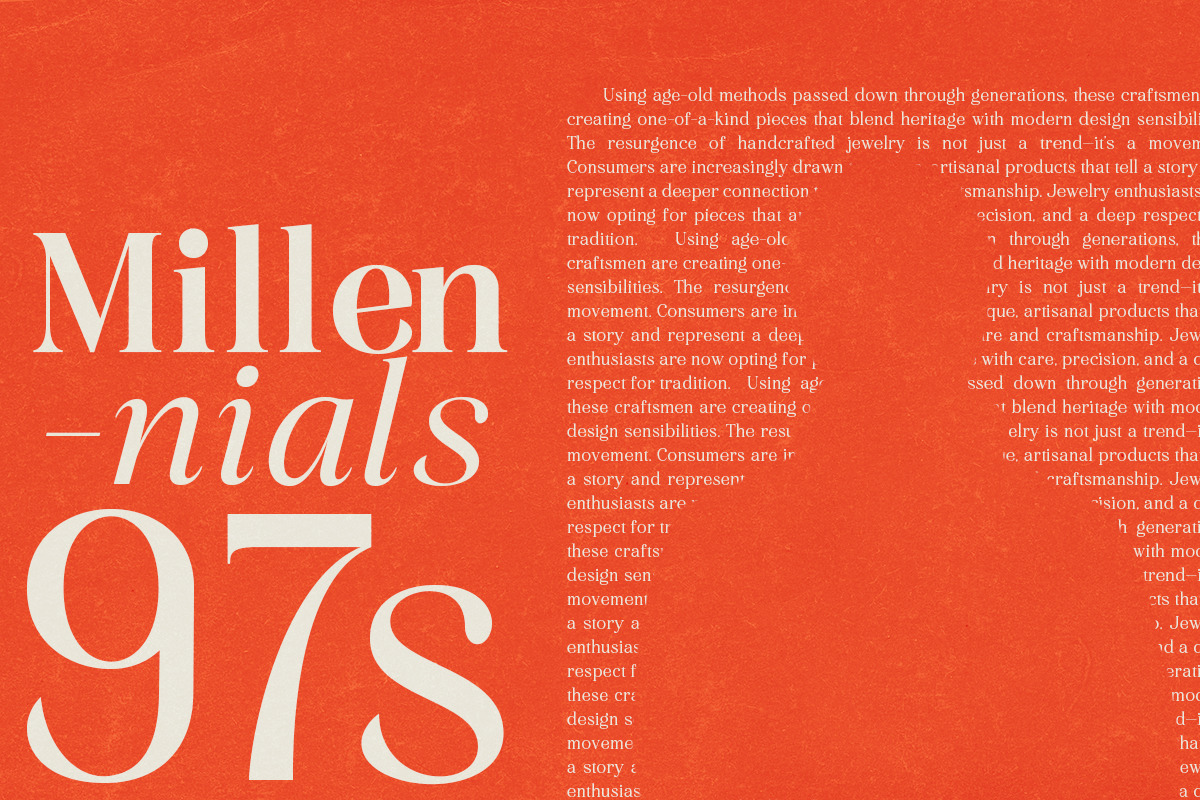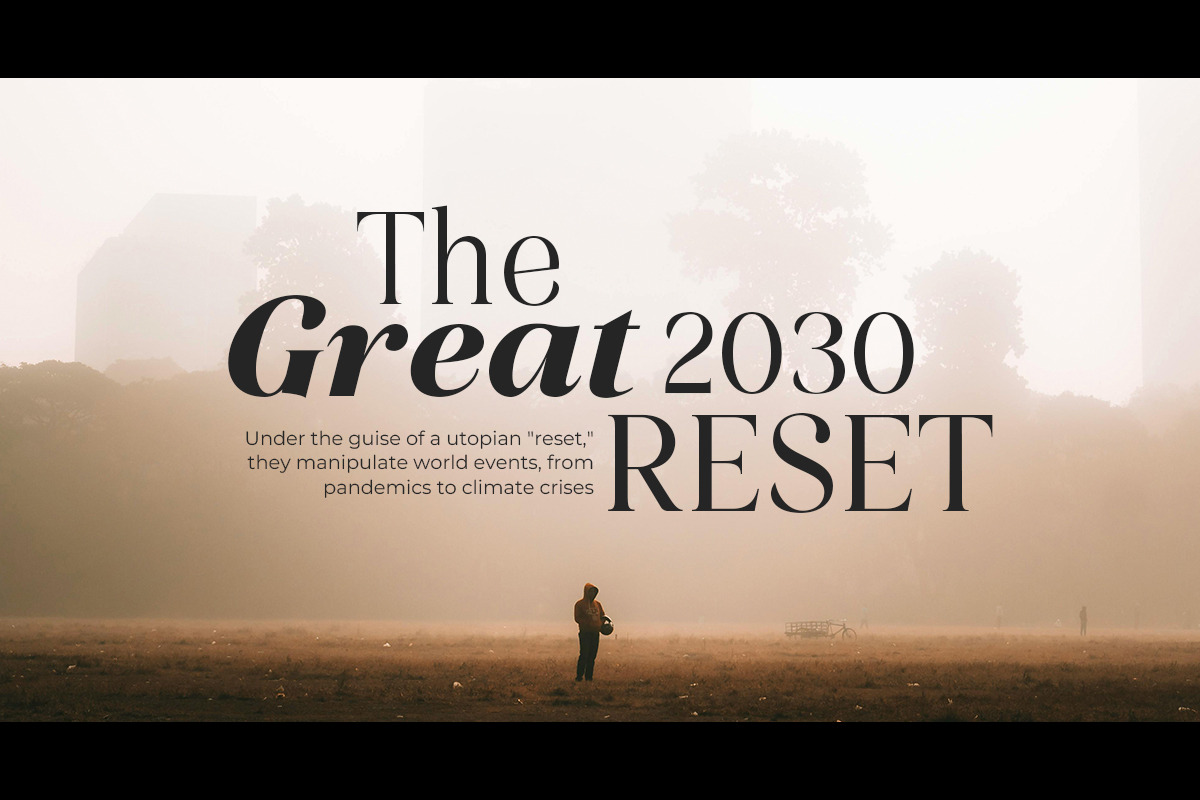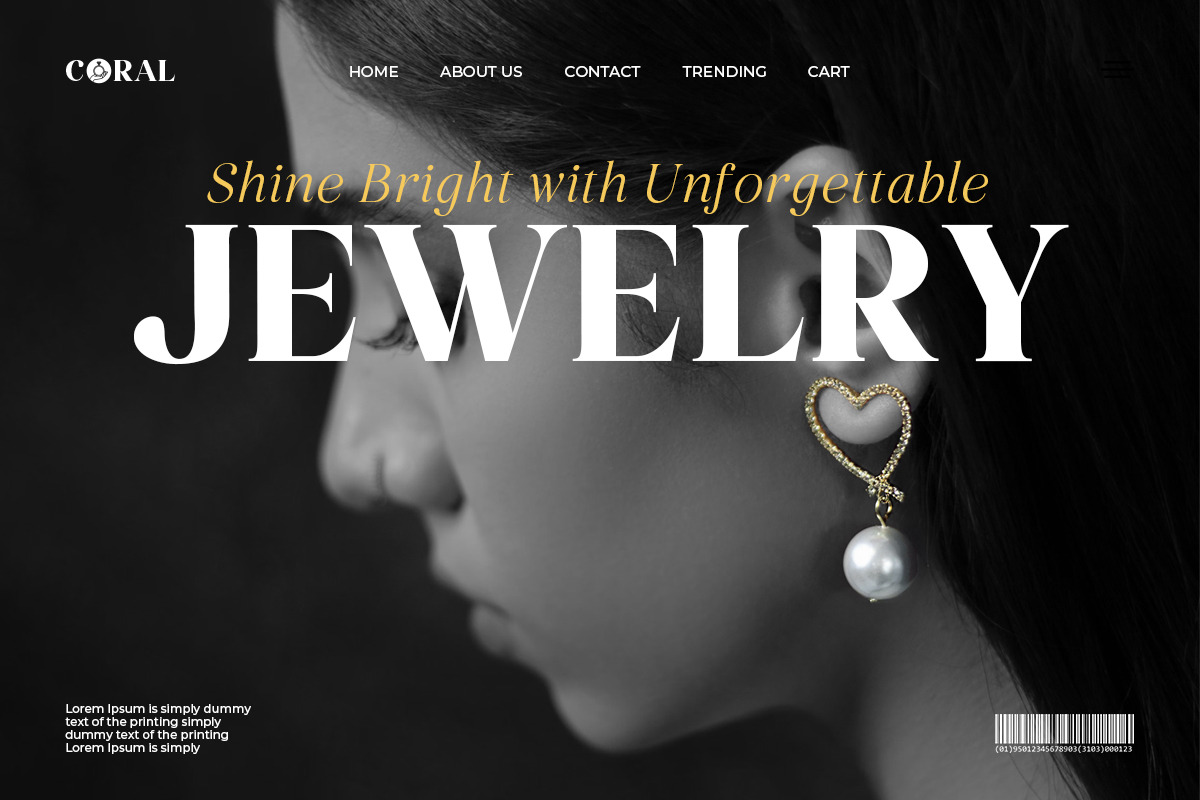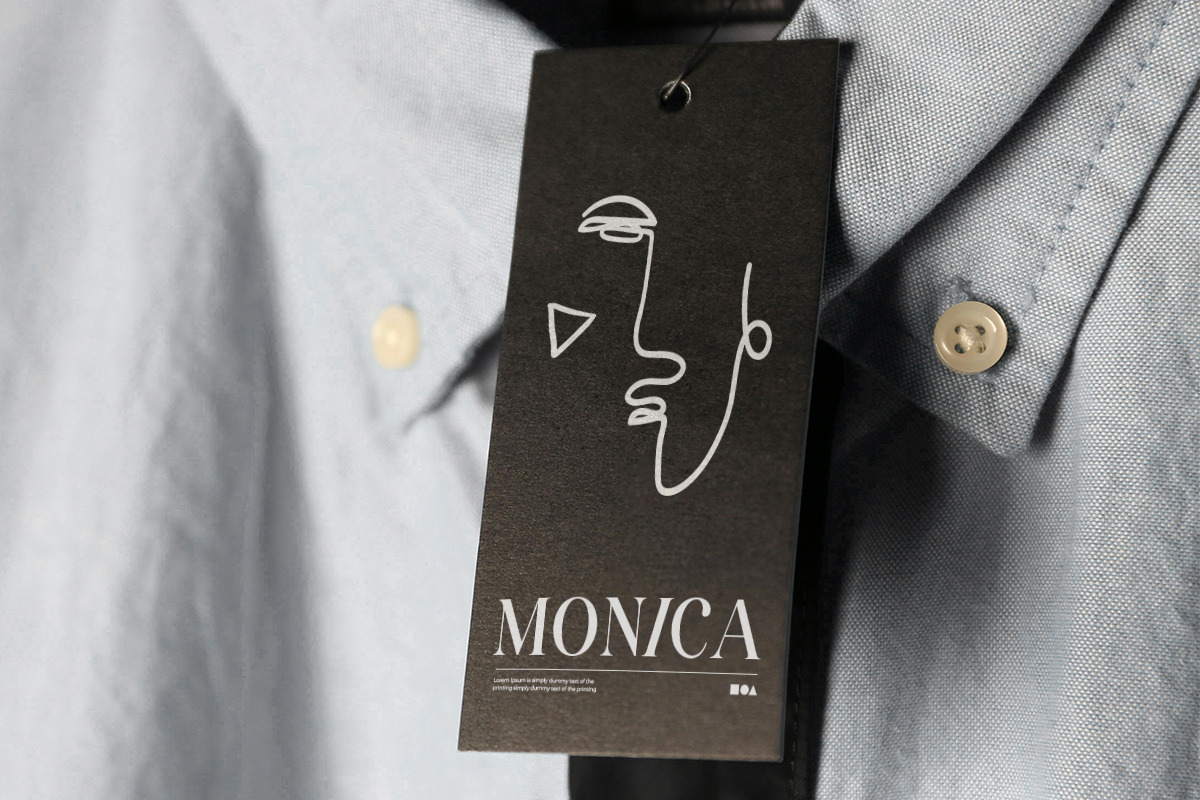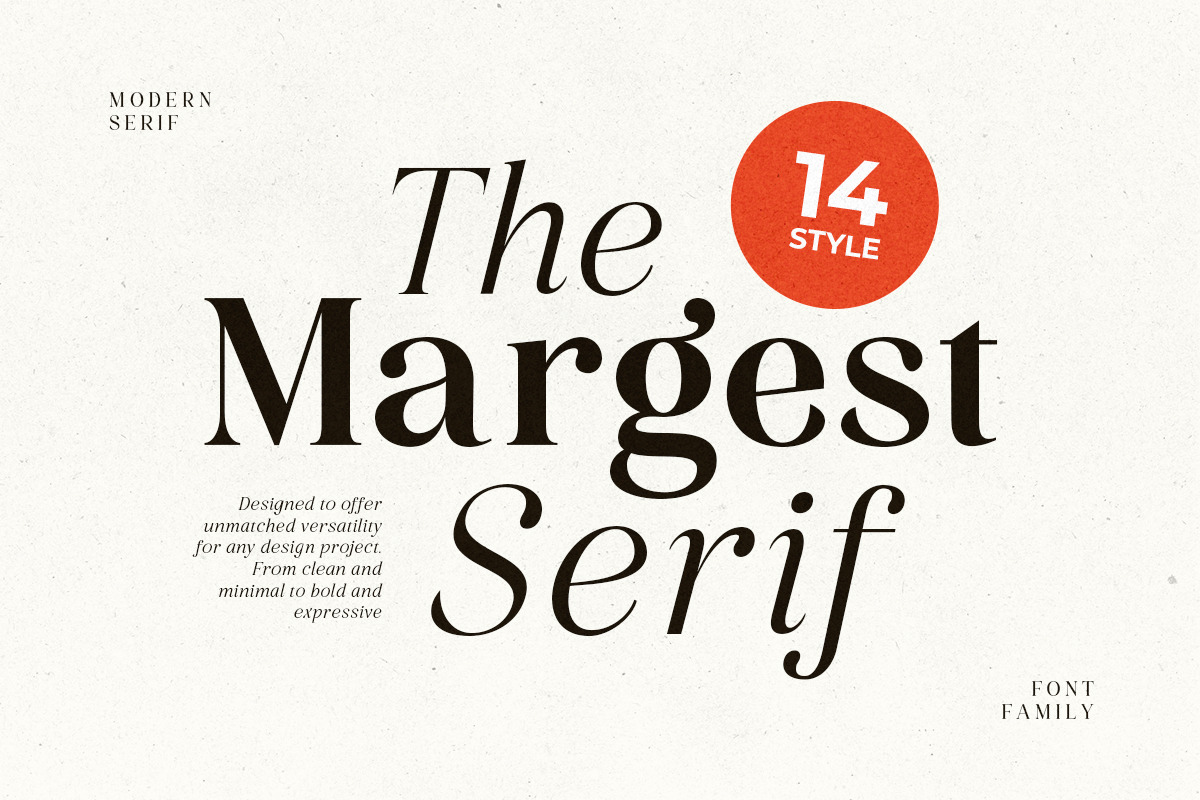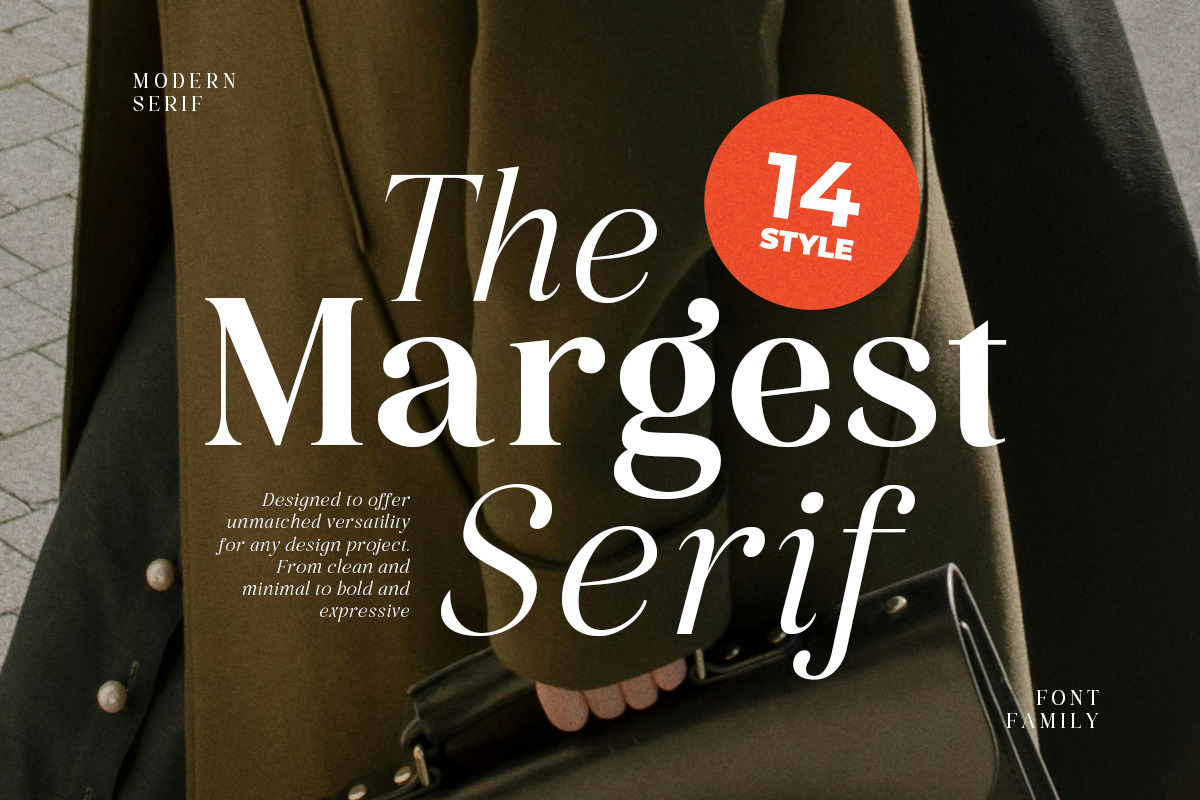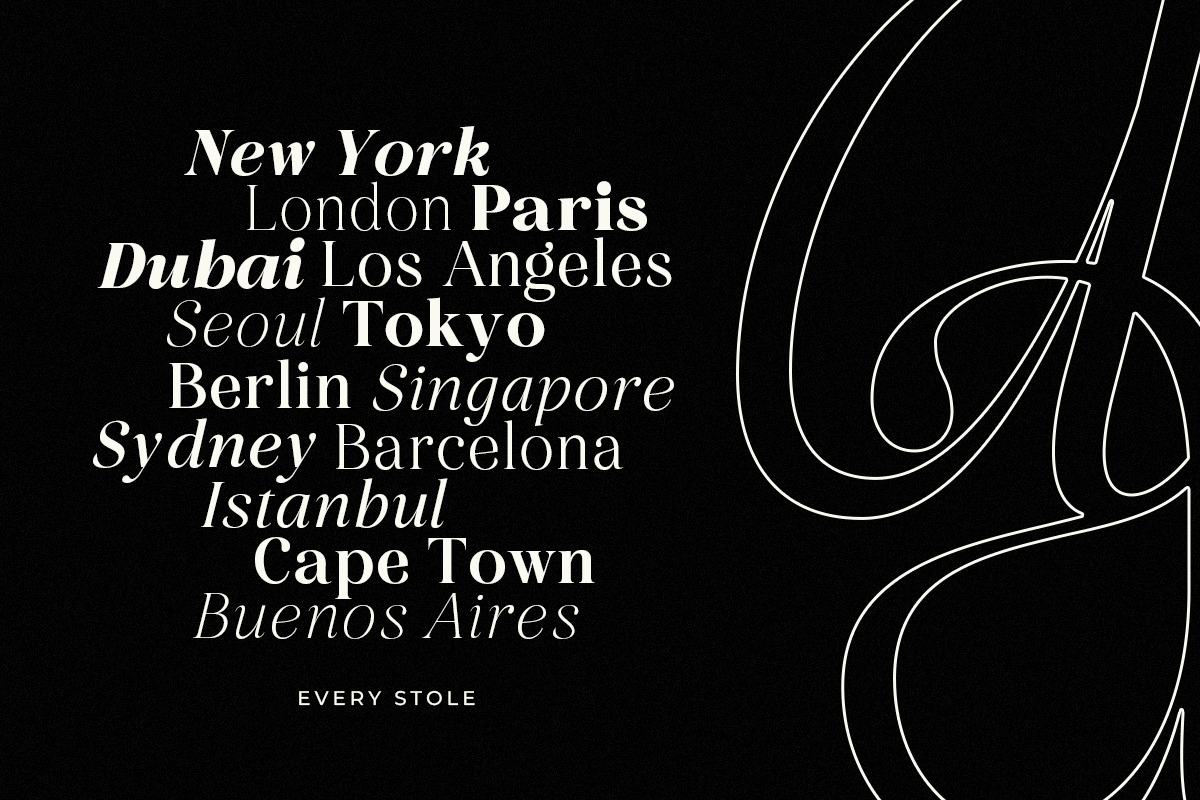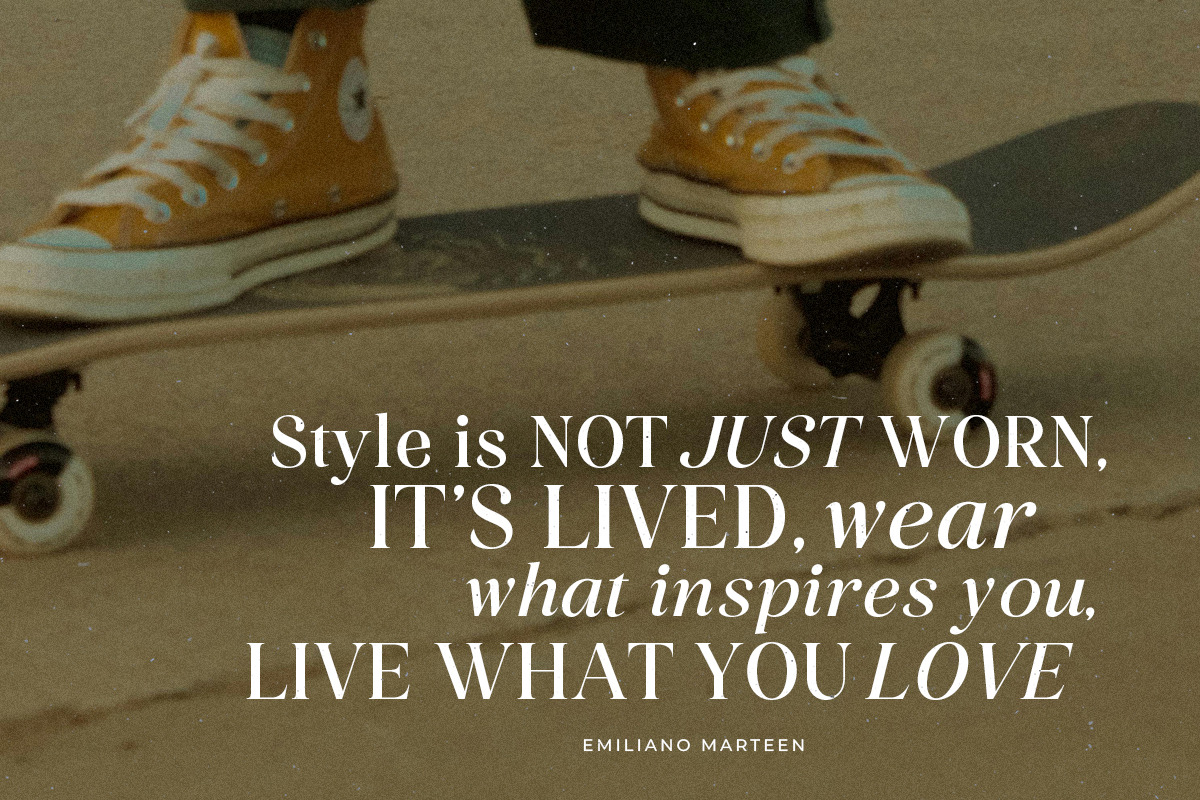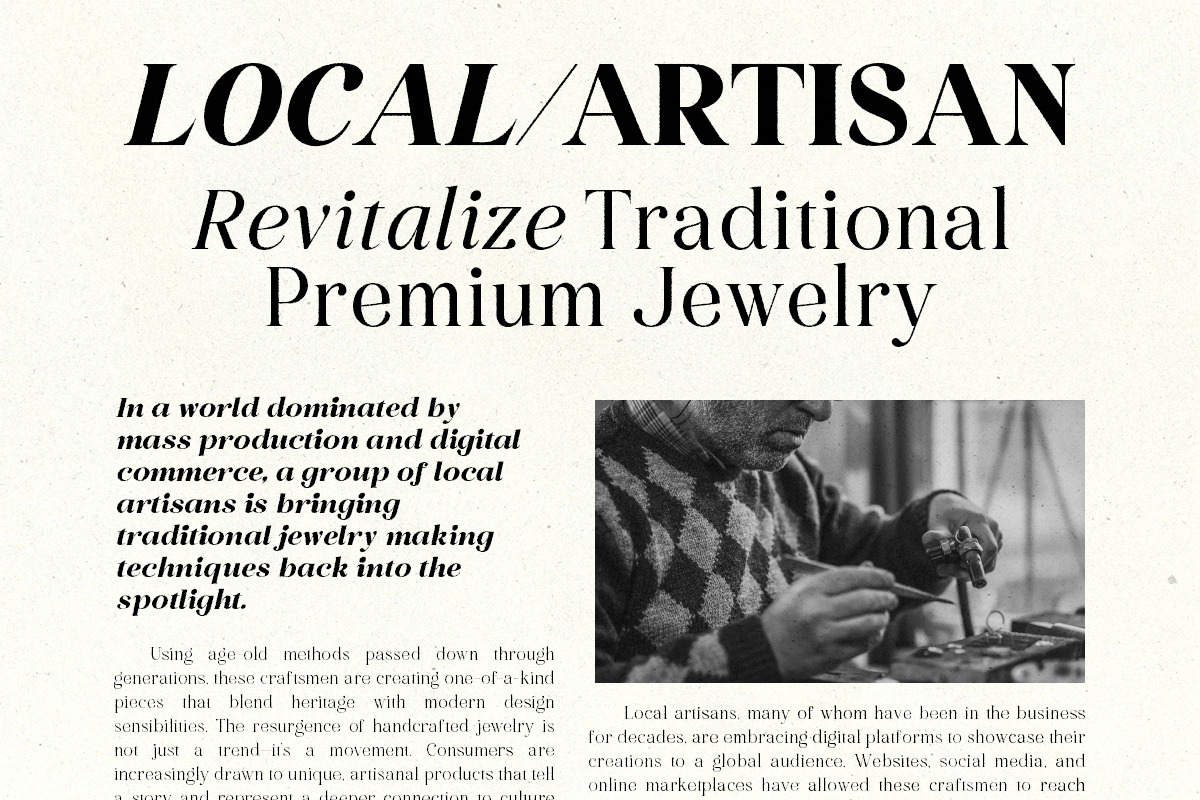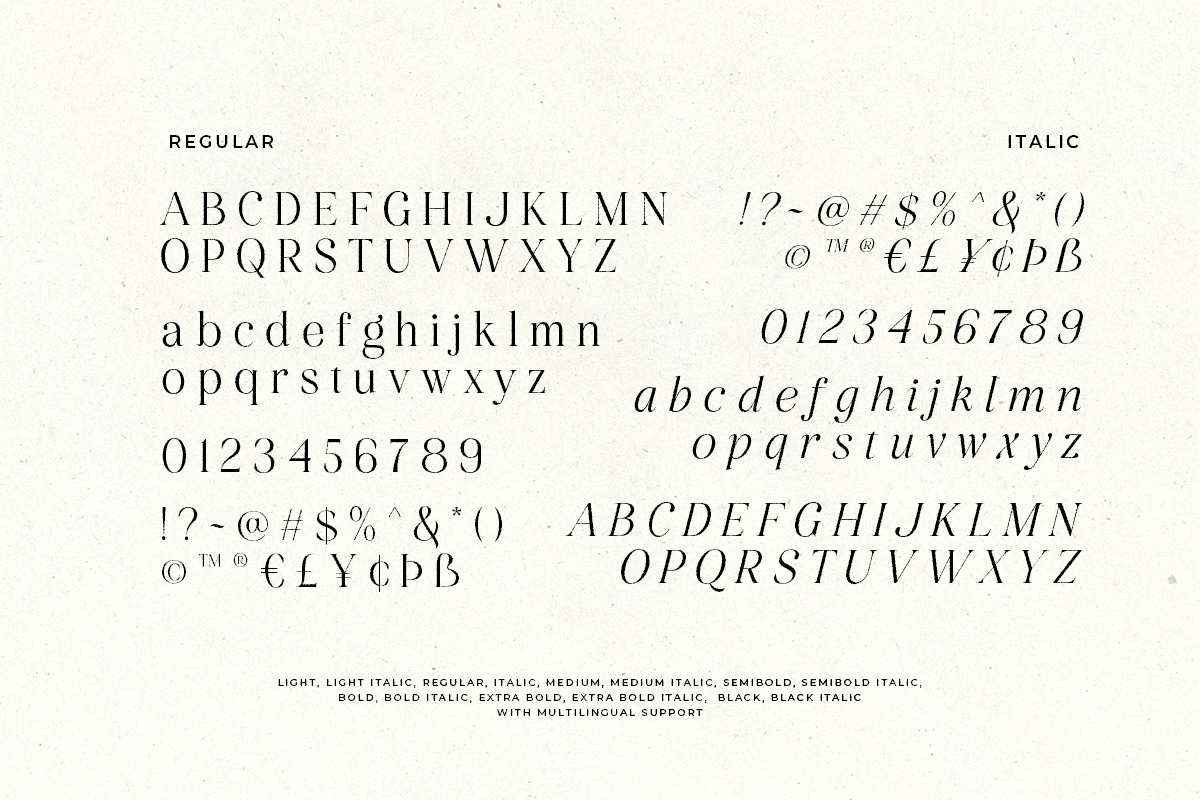
Margest - Modern Serif (14 FONTS)
Margest is a modern serif font family with classic and luxury looks. With 14 styles including light, regular, medium, semi bold, bold, extra bold, and black with italic each weight that you can choose to match your project. Choose light and regular for simplicity and clarity, or bold and extra bold for emphasis and bold character. And add italic style to enhance the looks. This font also support multi language!